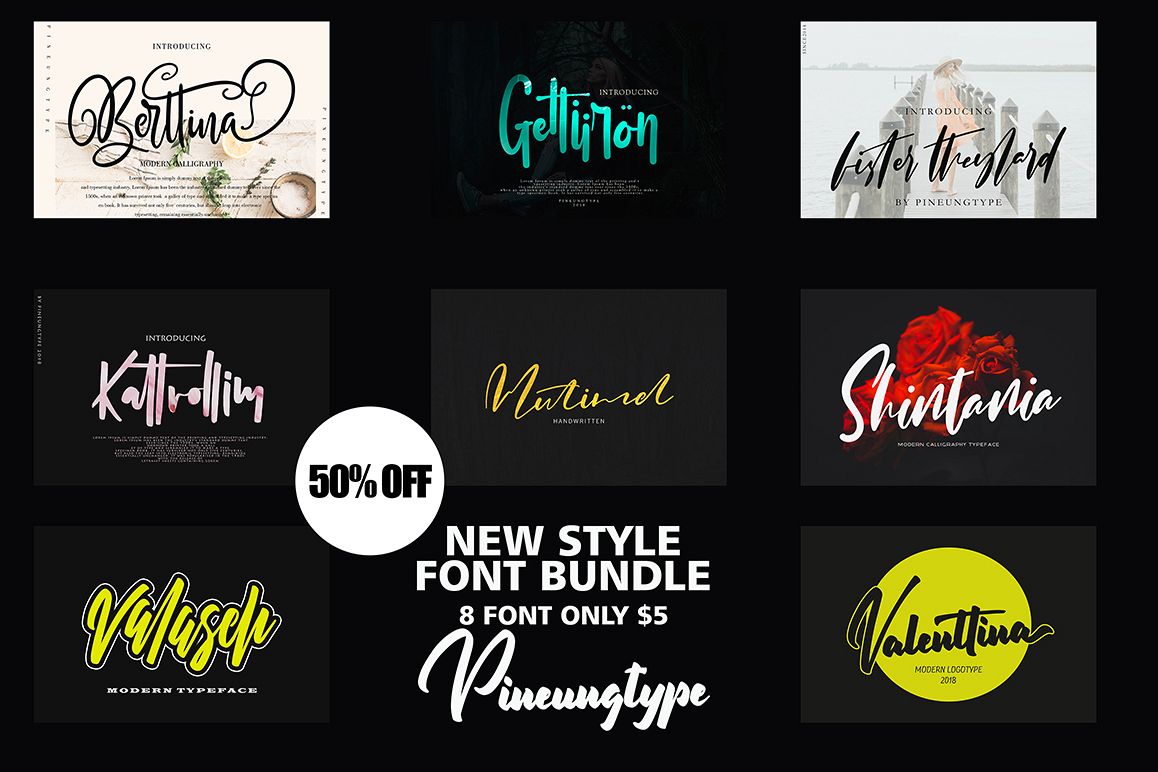
NEW STYLE FONT BUNDLE
Fister theylard
Gettiiron
Mutimel
Berttina
Valeseh
Valentinna
Shintania
Kattrolim
NEW STYLE FONT BUNDLE. This font bundle includes a varied range of font styles such as, calligraphy, signature, brush lettering, layered, hand lettering and more. Many have alternates and swashes.
this font will perfect for many different project ex: quotes, logo, blog header, poster, banding, fashion, apparel, letter, invitation, stationery, etc...